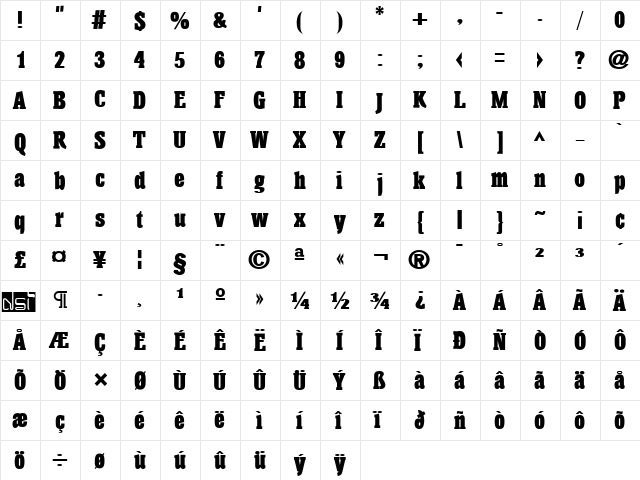
Hansen Regular
Design Context for Hansen Typeface
Hansen offers clean, dependable letterforms without strong stylistic allegiance, making it a practical choice for designers who need flexibility.